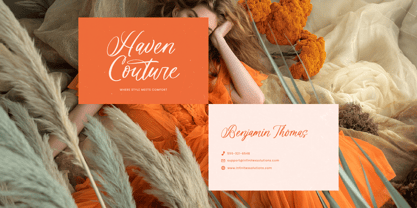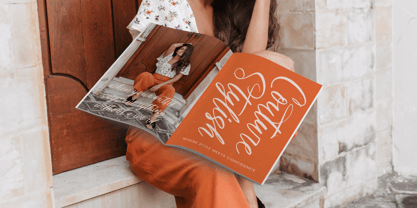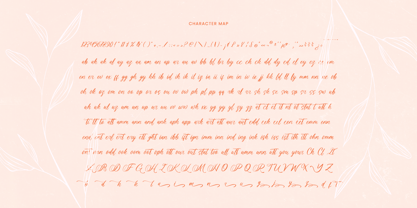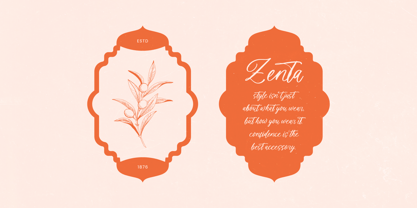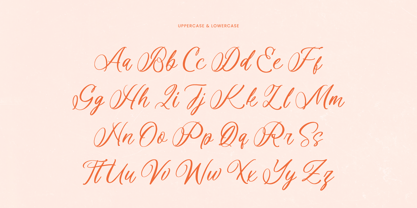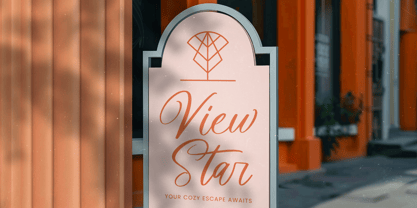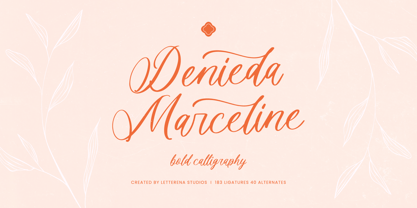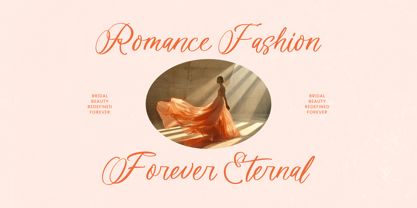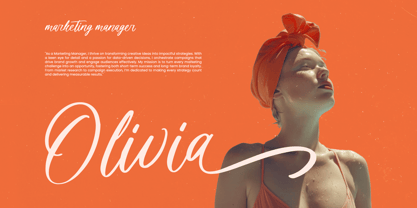
Denieda Marceline
The Denieda Marceline Font Family was designed by Heru Utama Putra and published by Letterena Studios. Denieda Marceline contains 2 styles and family package options. More about this family
Denieda Marceline is a bold calligraphy script font that blends elegance with expressive movement. Designed with flowing strokes and refined curves, this typeface captures the beauty of modern calligraphy while maintaining strong readability and visual impact. The letterforms feature dramatic swashes, graceful connections, and confident thick-to-thin contrasts. Its stylish flow makes every word feel luxurious and artistic. Whether used for branding, wedding invitations, beauty packaging, or social media designs, Denieda Marceline delivers a sophisticated and feminine touch. Equipped with 183 ligatures and 40 stylistic alternates, this font offers extensive creative flexibility. You can mix and match characters to craft unique lettering compositions, custom logos, and elegant headlines with ease. If you're looking for a bold calligraphy script that feels romantic, high-end, and timeless, Denieda Marceline is a perfect choice.